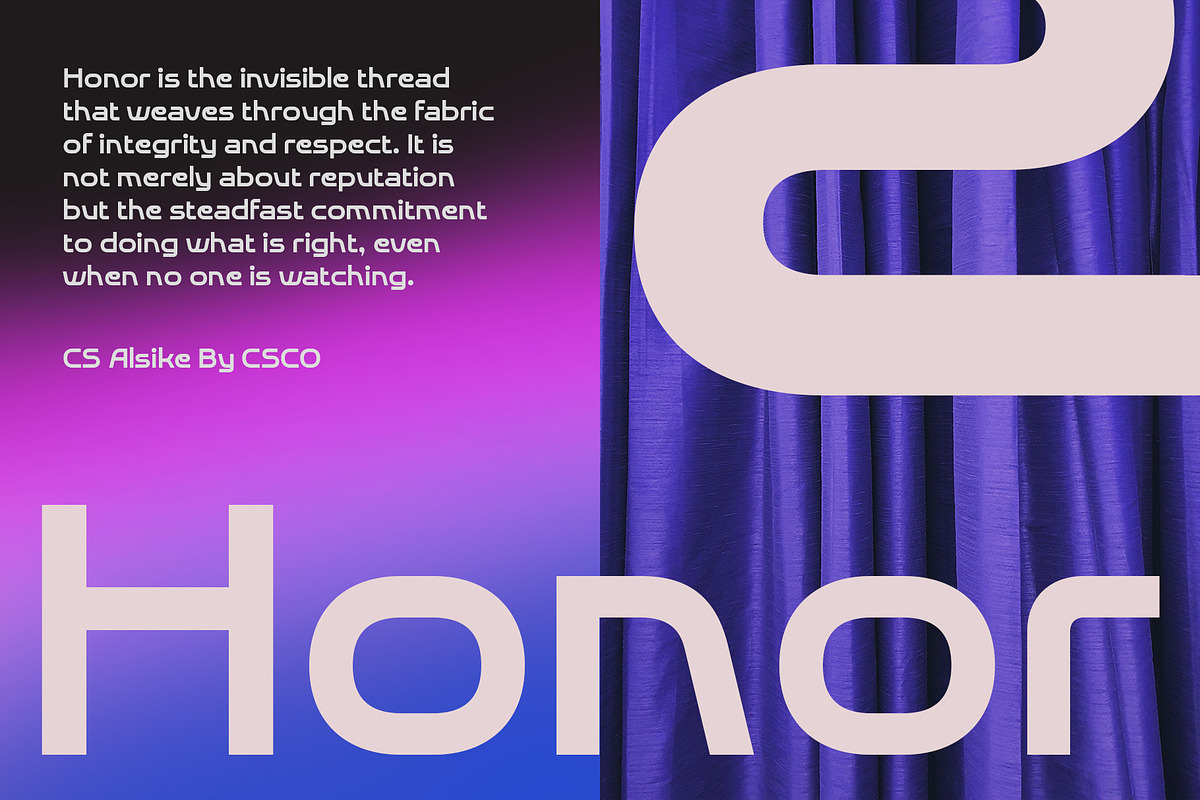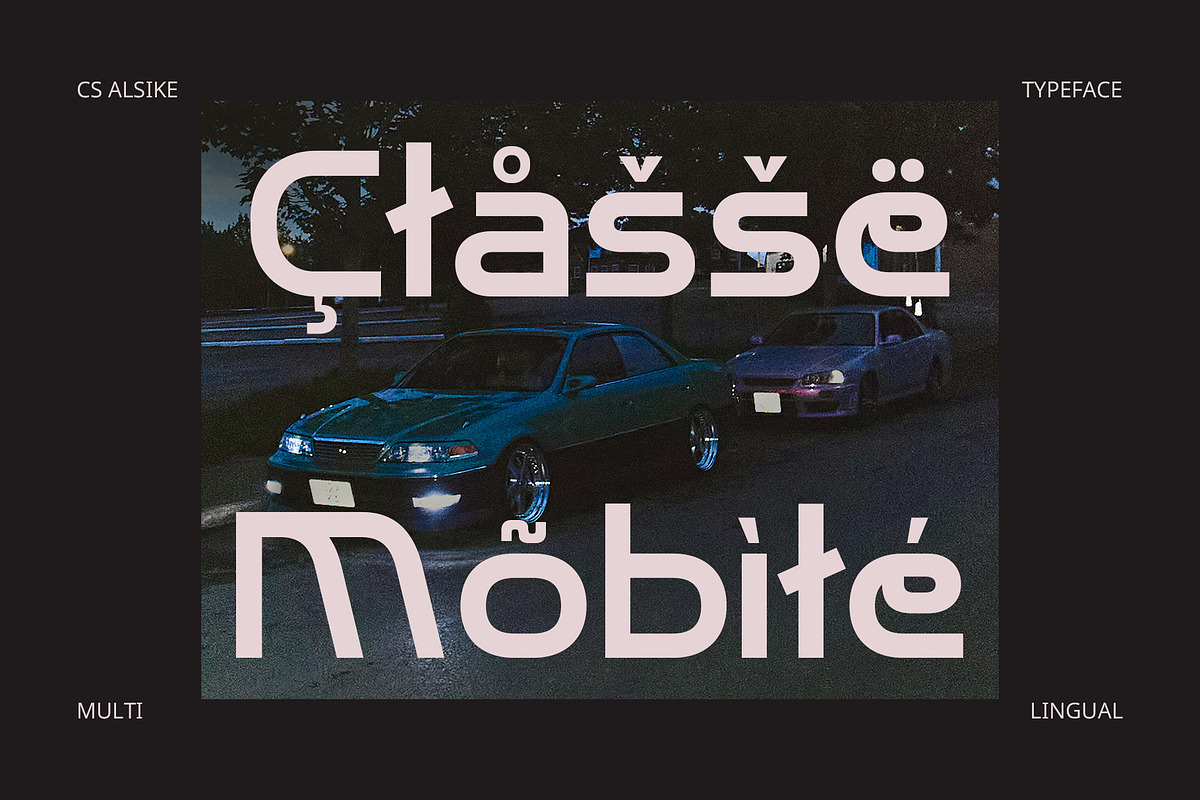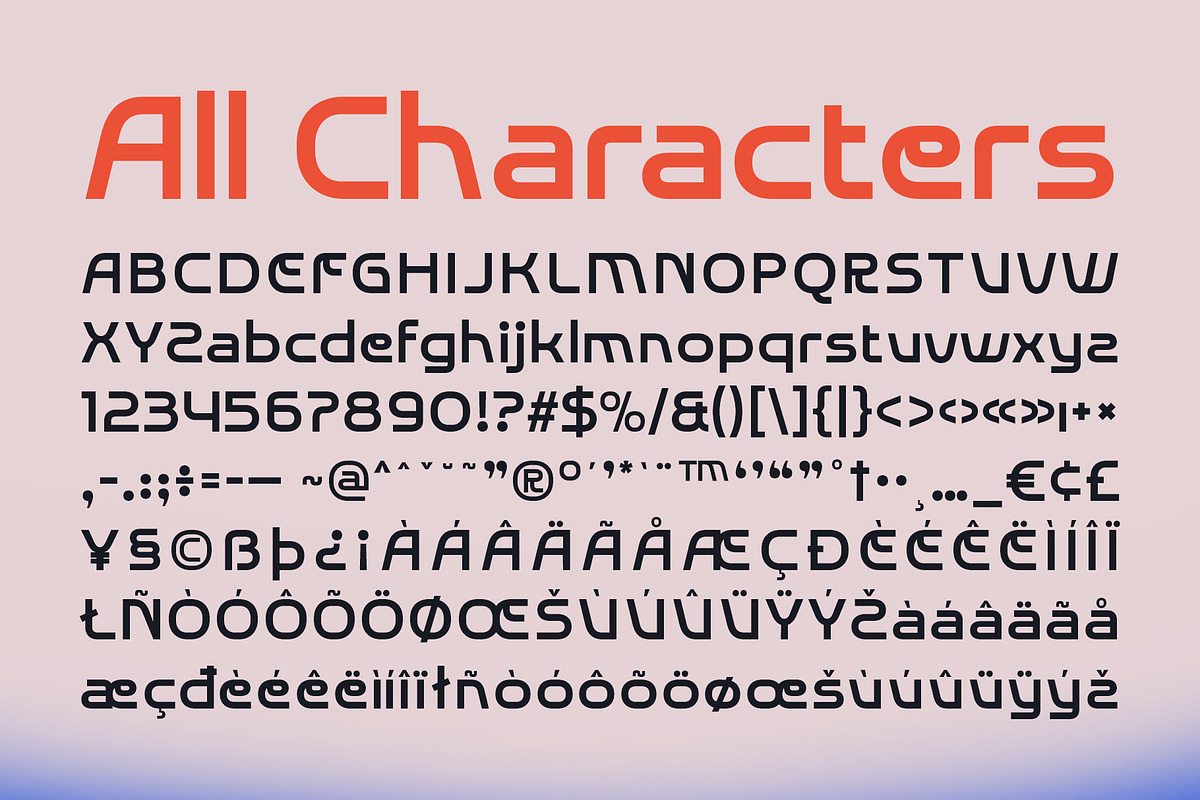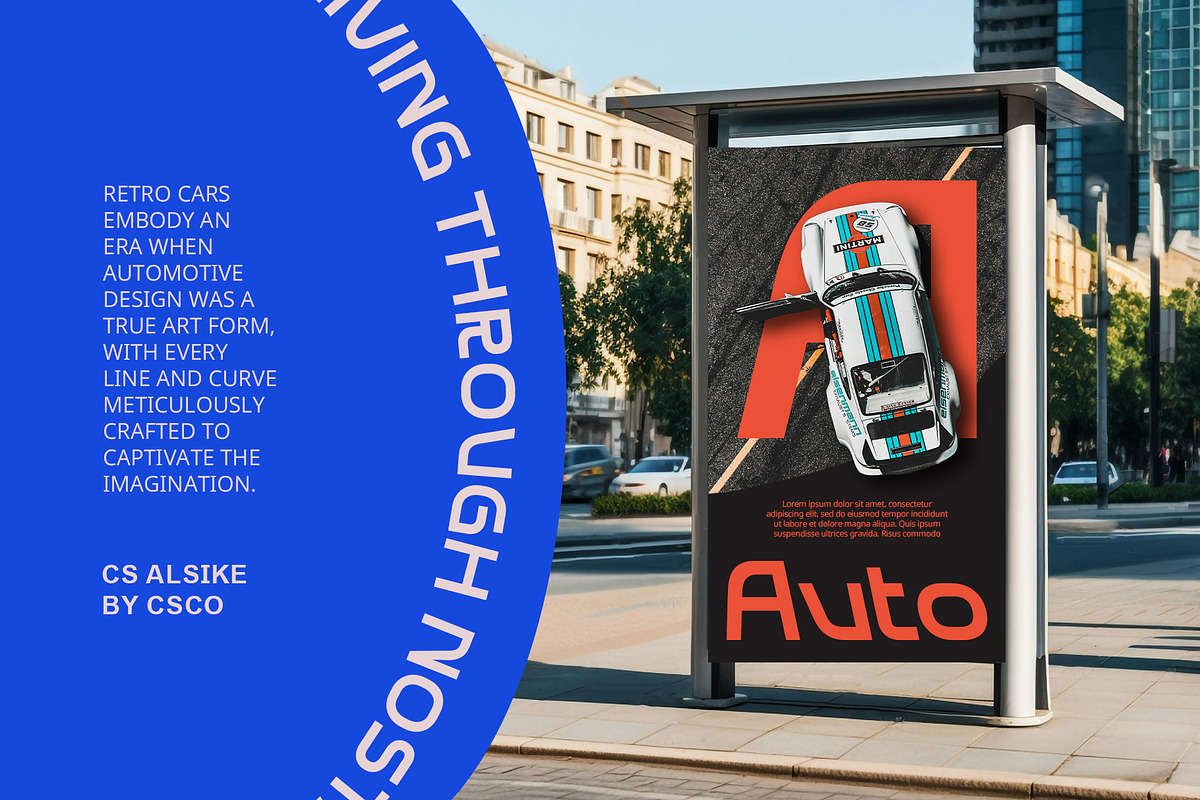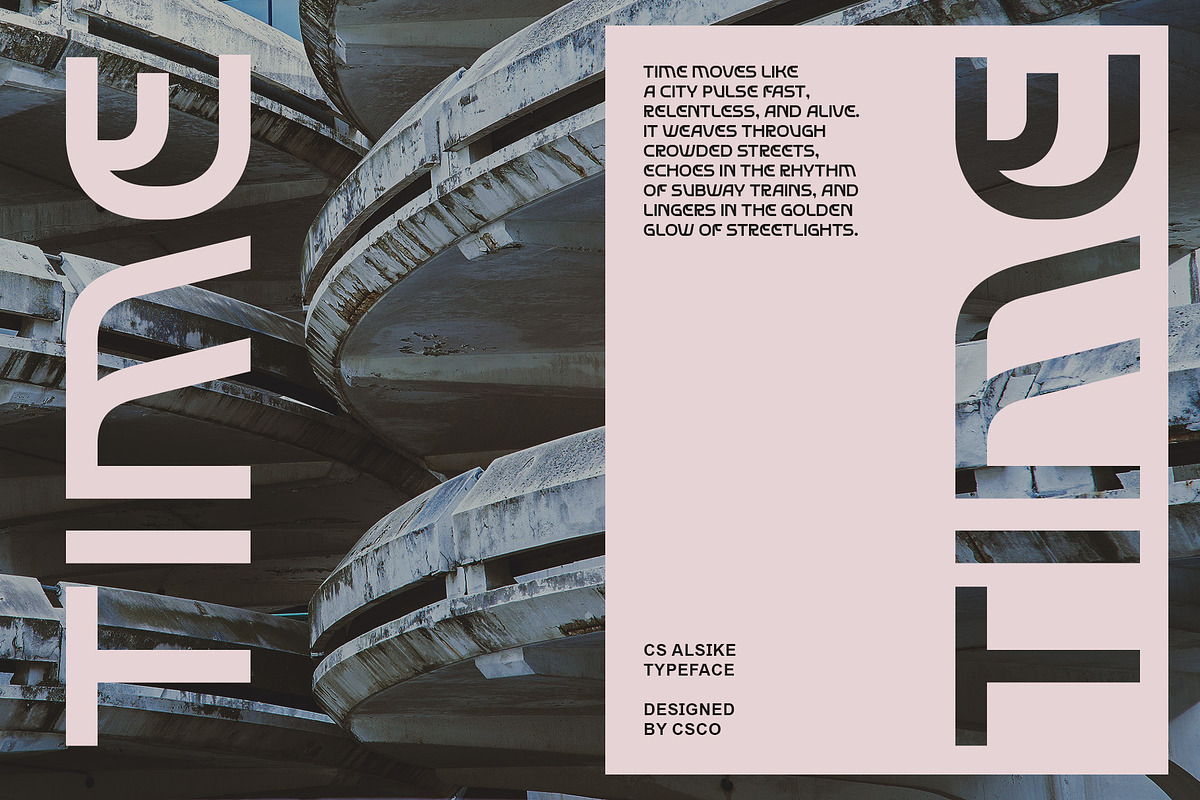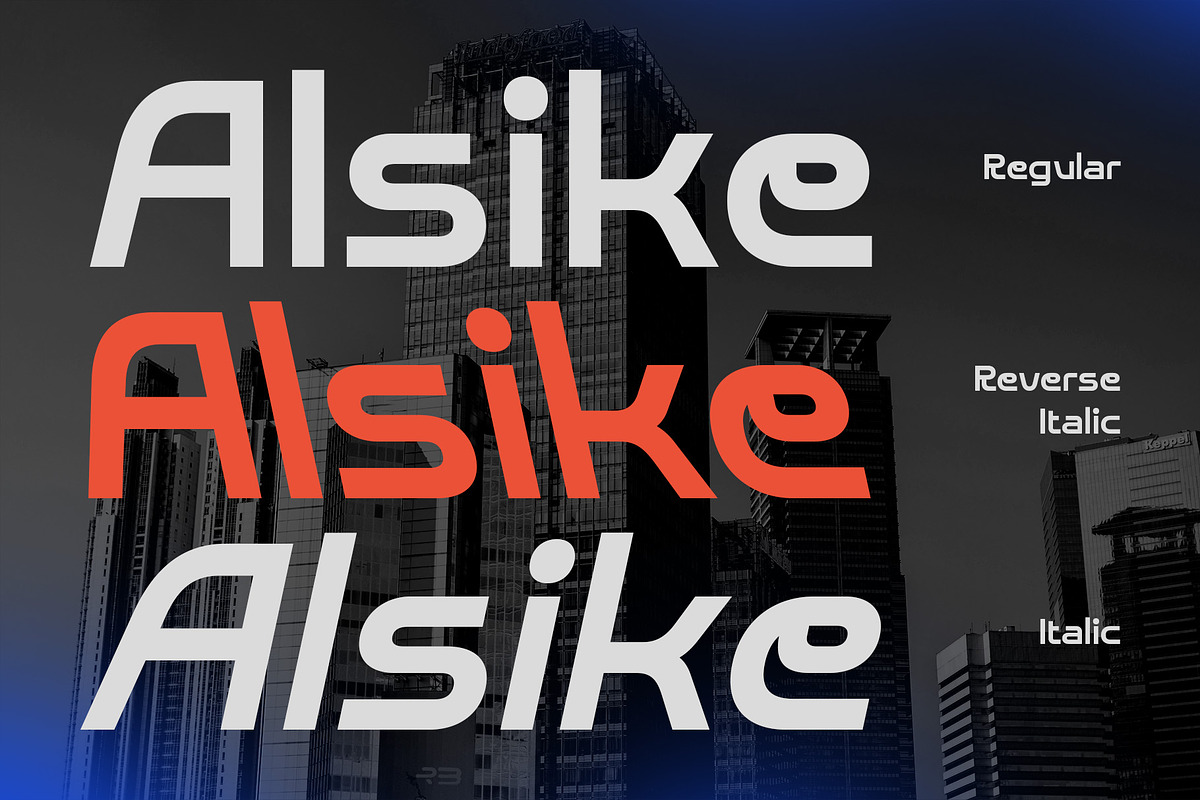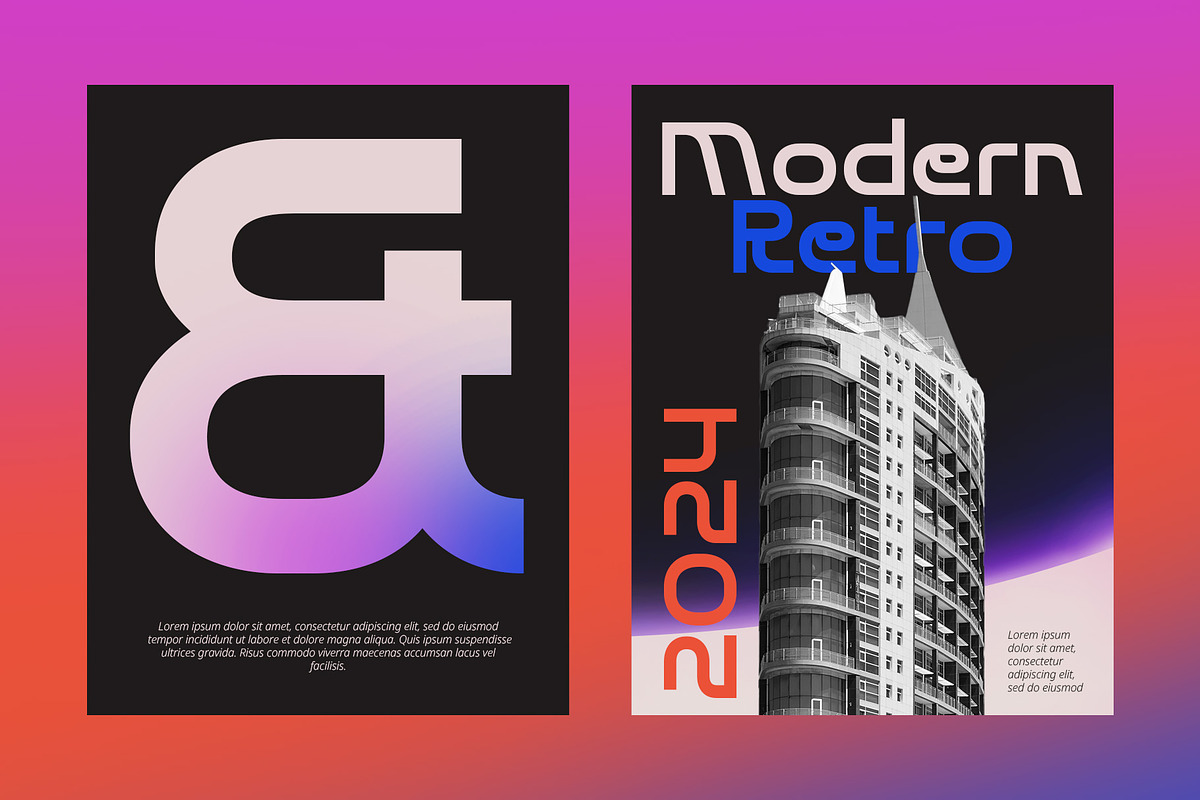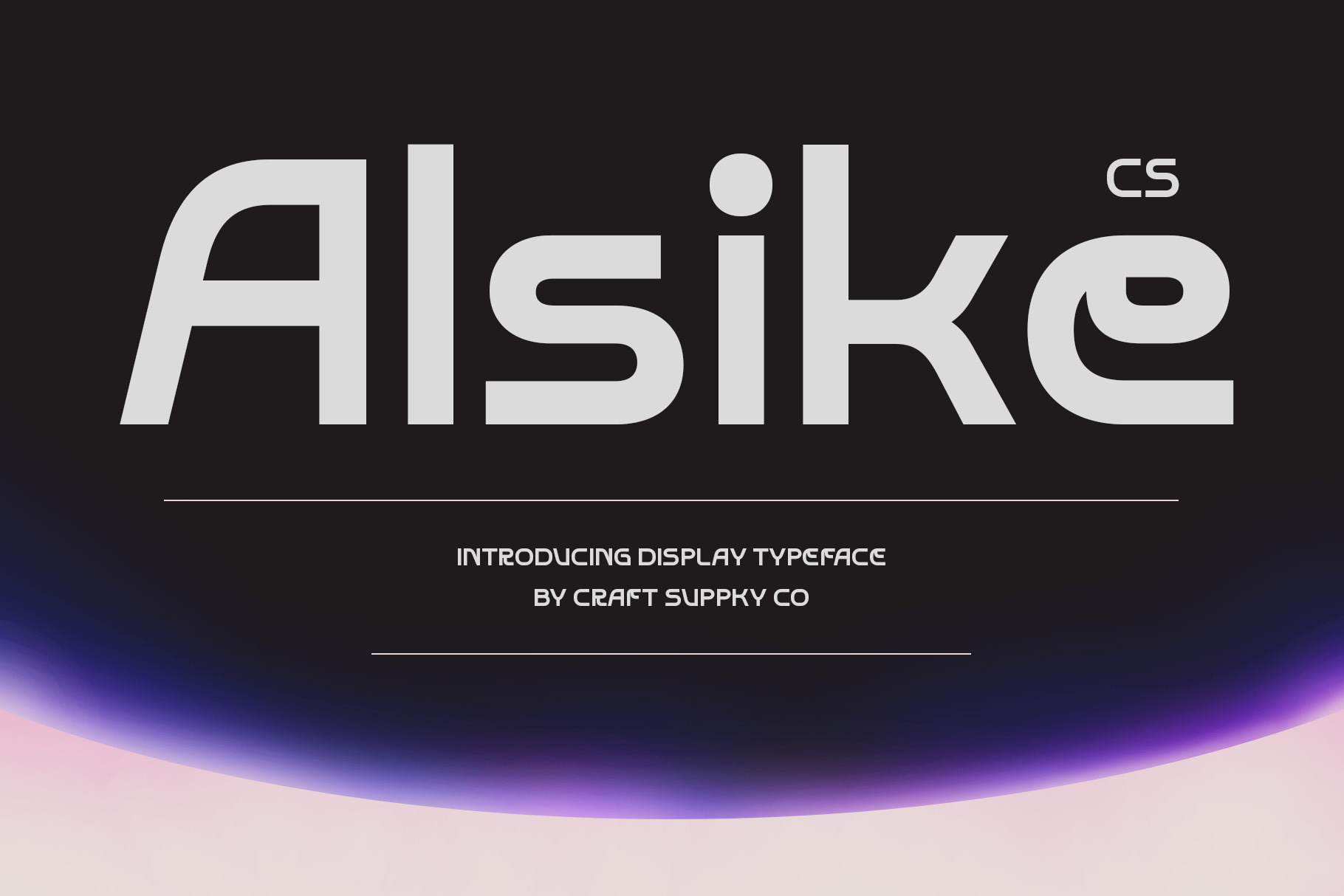
CS Alsike – Futuristic Font
CS Alsike – Futuristic Font: Cutting-Edge Futuristic Design
Bold, Geometric, and Forward-Thinking CS Alsike is a modern display sans-serif font that masterfully blends sharp angles and clean lines to create a sleek, futuristic look. Its geometric shapes and structured letterforms offer a strikingly bold appearance, making it the ideal choice for designs that aim to push the boundaries of contemporary typography. With its dynamic structure, this font effortlessly evokes a sense of innovation, technology, and modernity.
A Tech-Inspired, Forward-Looking Typeface With its bold, sharp angles and crisp, clean lines, CS Alsike exudes a tech-inspired vibe, perfect for digital designs, tech branding, and projects that seek a sleek, cutting-edge aesthetic. Its geometric forms are highly readable, offering both legibility and a visually engaging experience. This font’s unique combination of boldness and precision delivers a forward-thinking look, setting the tone for any project that demands a modern, high-tech appearance.
Perfect for Digital and Technological Designs CS Alsike is ideal for a wide range of applications, including branding, websites, tech interfaces, advertisements, and UI elements. Its versatility makes it a standout choice for any digital design or tech-related project.